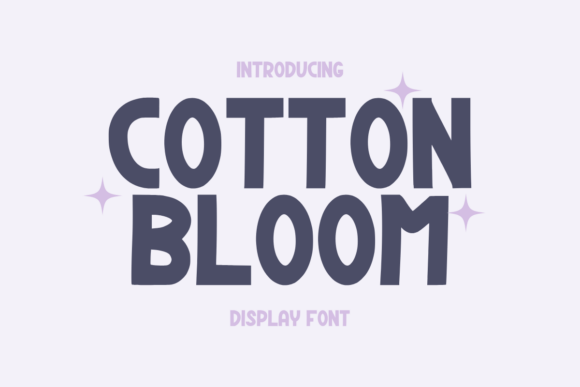
Cotton Bloom Font: The Perfect Playful Font for Crafters and Designers
Are you a crafter, designer, or maker looking for a playful font to elevate your creative projects? Look no further than the Cotton Bloom font! This adorable font is perfect for a variety of applications, including crafts, planners, KDP, stickers, greeting cards, and more. In this article, we’ll explore the features and benefits of the Cotton Bloom font, and how it can add a touch of whimsy and charm to your DIY projects.
What is Cotton Bloom Font?
Cotton Bloom font is a modern, playful font designed specifically for crafters, designers, and makers. Its cute and friendly style makes it perfect for a wide range of creative projects, from paper crafts to digital designs. The font is highly versatile, and its unique style is sure to capture the attention of your audience.
Key Features of Cotton Bloom Font
- Playful and Whimsical: Cotton Bloom font has a playful and whimsical style that’s perfect for adding a touch of personality to your projects.
- Cute and Friendly: The font’s cute and friendly style makes it perfect for crafts, planners, and other DIY projects.
- Highly Versatile: Cotton Bloom font can be used for a wide range of applications, including Cricut, sublimation, and creative DIY projects.
- Easy to Read: The font is highly legible, making it perfect for use in planners, journals, and other projects where readability is important.
Uses for Cotton Bloom Font
Cotton Bloom font is perfect for a wide range of creative projects, including:
Crafts
Cotton Bloom font is perfect for paper crafts, such as card making, scrapbooking, and DIY gift tags. Its playful style adds a touch of whimsy and charm to any craft project.
Planners and Journals
The font’s cute and friendly style makes it perfect for use in planners, journals, and other organizational tools. Add a touch of personality to your planner or journal with Cotton Bloom font.
KDP and Digital Designs
Cotton Bloom font is also perfect for use in KDP (Kindle Direct Publishing) and digital designs, such as printable art, SVG files, and more.
Stickers and Greeting Cards
The font’s playful style makes it perfect for use in stickers, greeting cards, and other paper crafts.
Cricut and Sublimation Projects
Cotton Bloom font is highly compatible with Cricut and sublimation projects, making it perfect for use in cutting machines and heat transfer designs.
Benefits of Using Cotton Bloom Font
There are many benefits to using Cotton Bloom font in your creative projects. Here are just a few:
Adds a Touch of Whimsy and Charm
Cotton Bloom font adds a touch of whimsy and charm to any project, making it perfect for crafters and designers who want to add a personal touch to their work.
Highly Versatile
The font’s highly versatile style makes it perfect for use in a wide range of creative projects, from paper crafts to digital designs.
Easy to Read and Use
Cotton Bloom font is highly legible and easy to use, making it perfect for crafters and designers of all skill levels.
Increases Creativity
The font’s playful style can help increase creativity and inspire new ideas for your projects.
Tips and Tricks for Using Cotton Bloom Font
Here are a few tips and tricks for using Cotton Bloom font in your creative projects:
Experiment with Different Sizes and Colors
Don’t be afraid to experiment with different sizes and colors of Cotton Bloom font to find the perfect look for your project.
Pair with Other Fonts
Cotton Bloom font pairs well with other fonts, so feel free to experiment with different font combinations to find the perfect look for your project.
Use in Combination with Images
Cotton Bloom font looks great in combination with images, so consider using it in conjunction with photos, illustrations, or other graphics.
Make it Your Own
Don’t be afraid to make Cotton Bloom font your own by adding your own personal touch to your projects.
Cotton Bloom font is a playful and versatile font that’s perfect for crafters, designers, and makers. Its cute and friendly style makes it perfect for a wide range of creative projects, from paper crafts to digital designs. With its highly legible style and ease of use, Cotton Bloom font is sure to become a favorite in your creative toolbox.